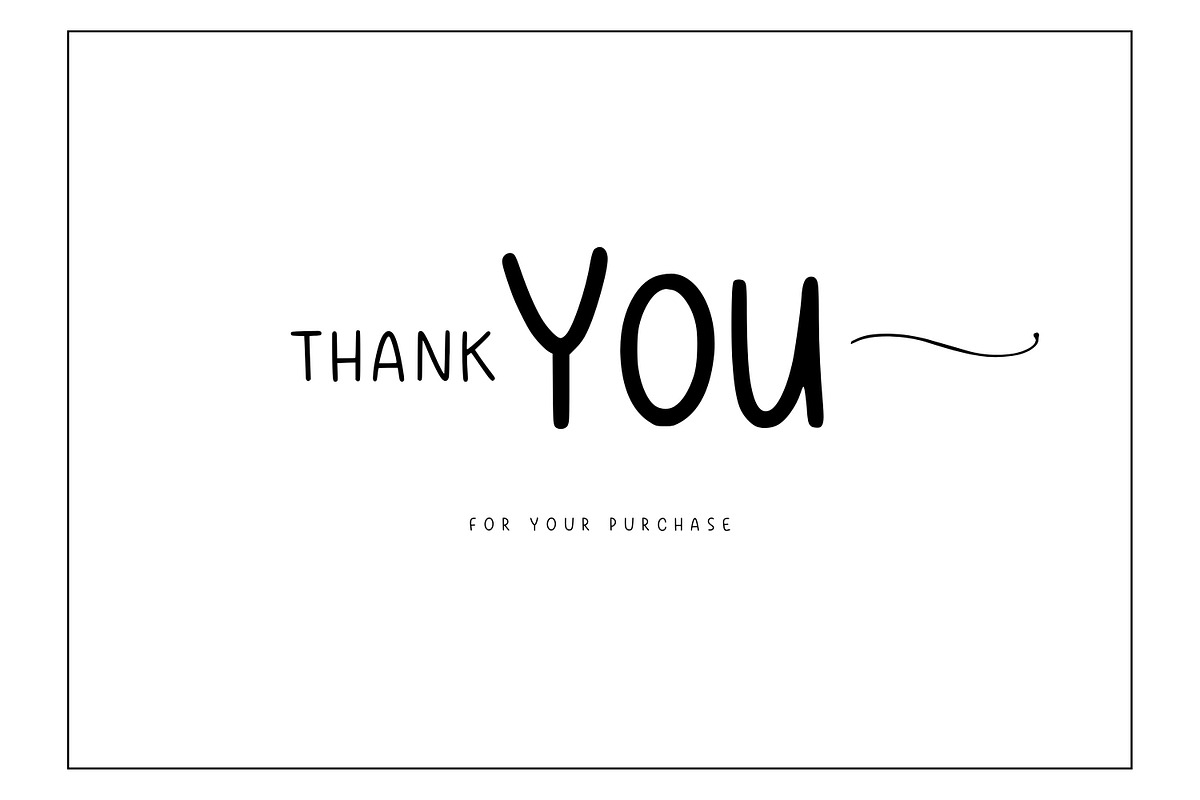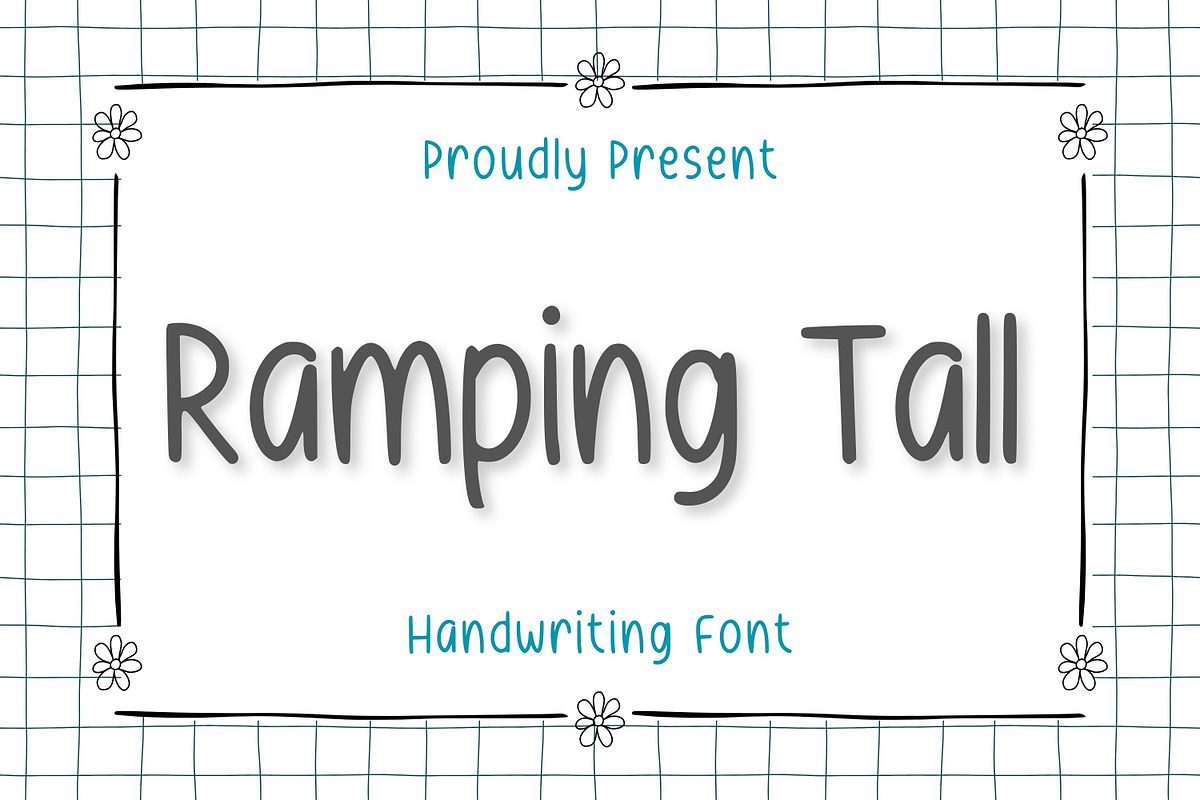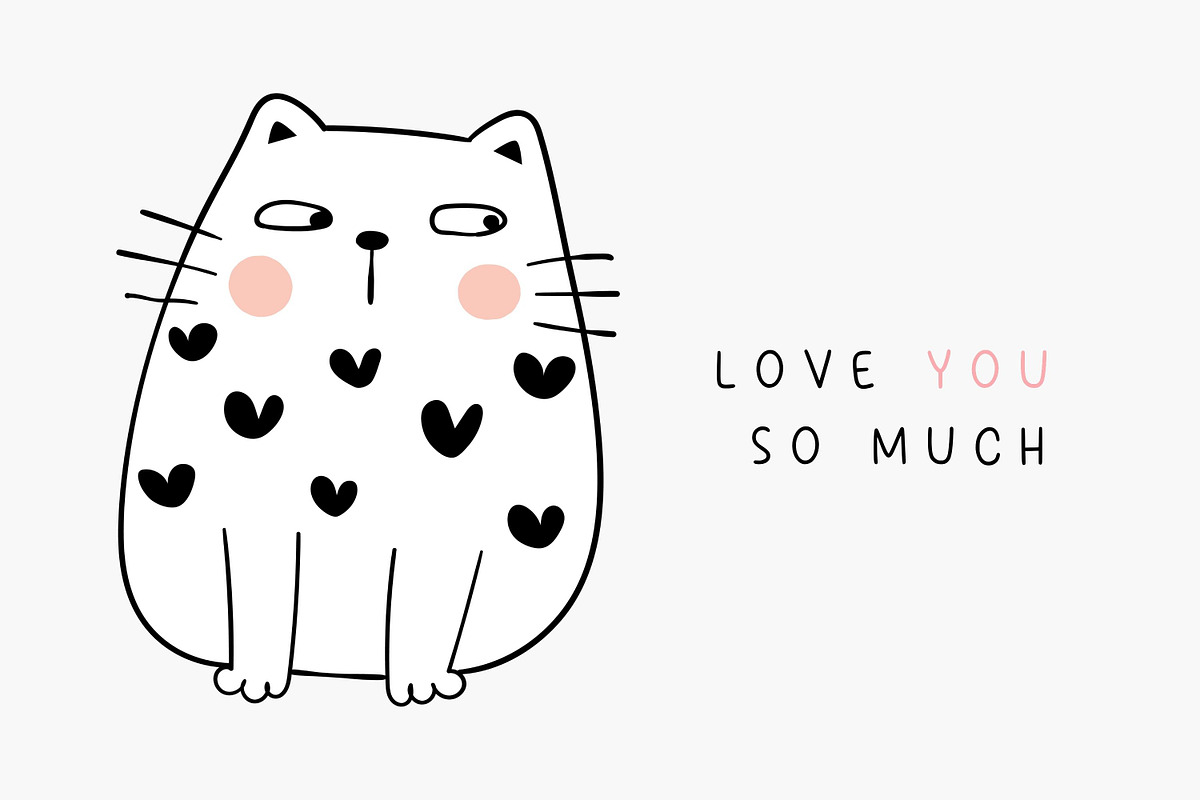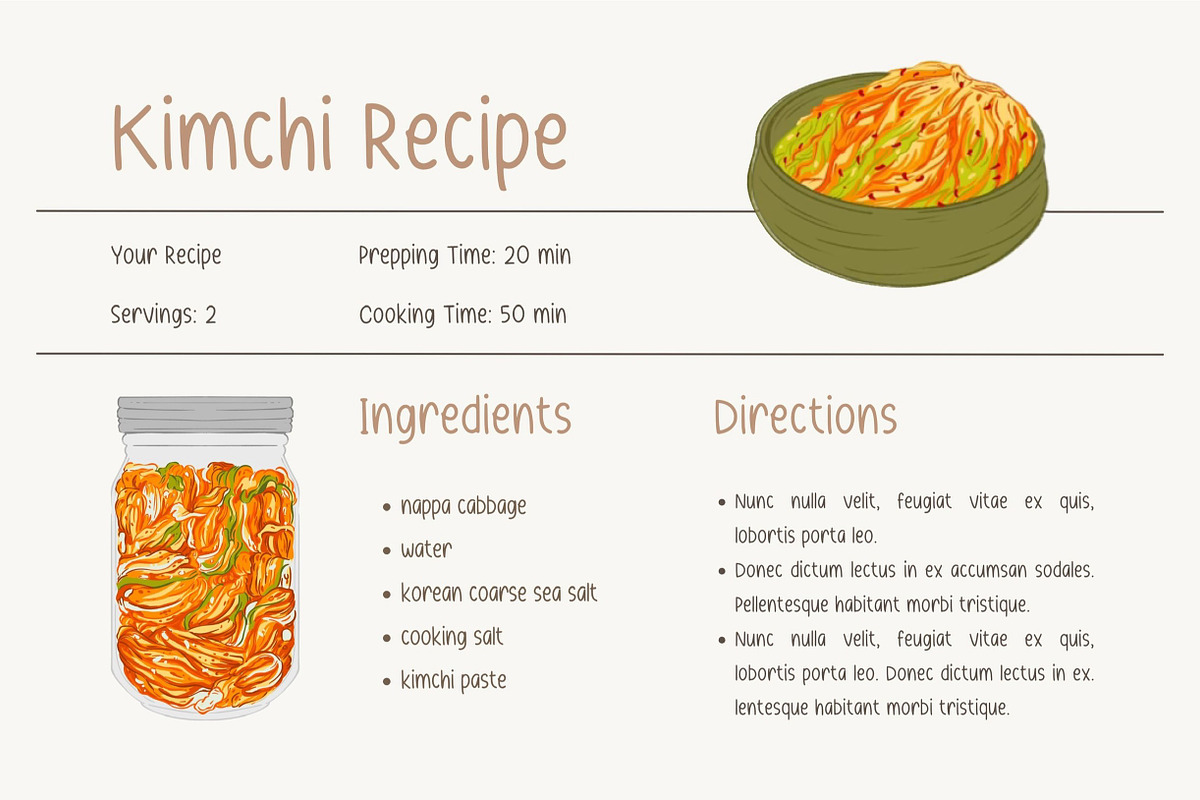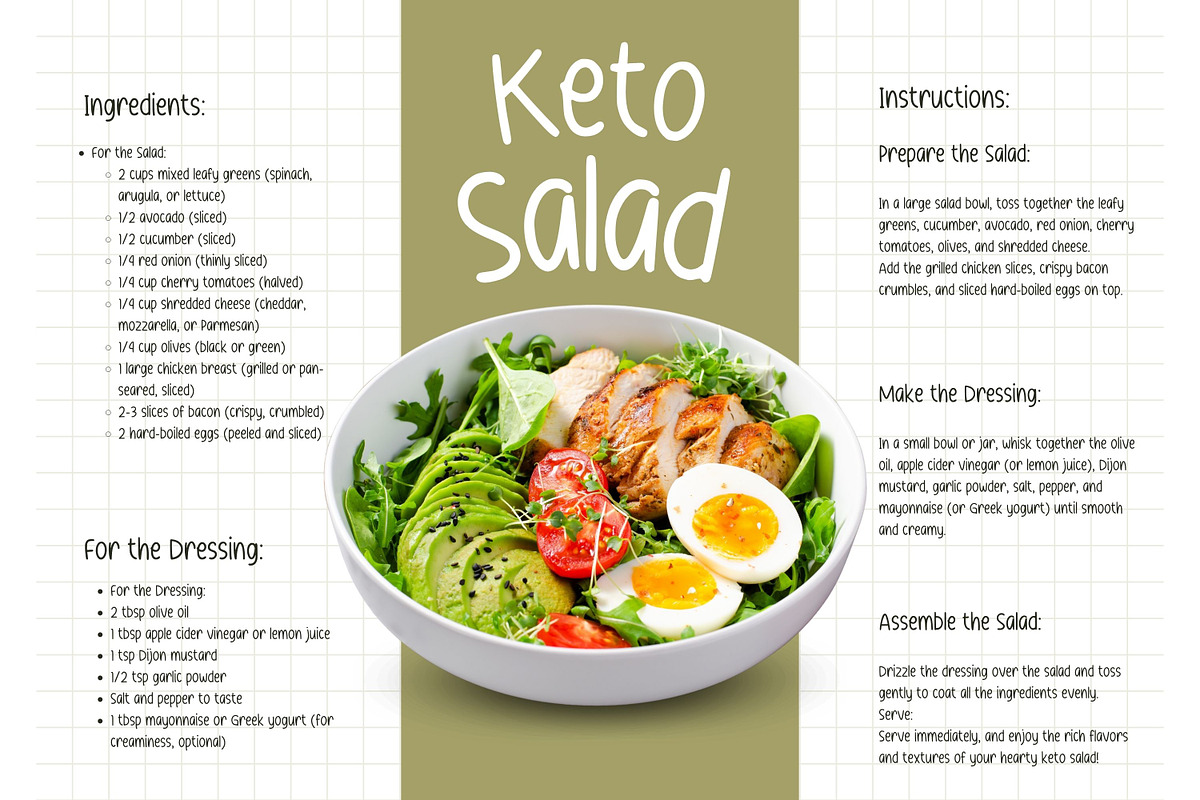
Ramping Tall
Discover the fine fusion of simplicity and elegance embodied in the ‘Ramping tall’ font. With its softly styled lines and curves, it promises to breathe life into your creative designs. Make your recipe cards more engaging, or add a special touch to thank you cards. The ‘Ramping Tall’ font elegantly combines the charm of personal handwriting with an artistic impression, making it the perfect tool to add an intimate touch to your creations.